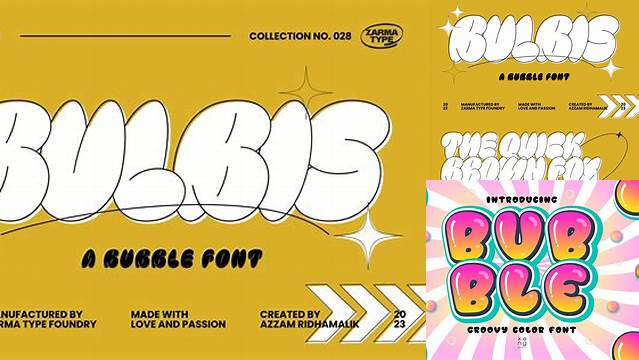
Bulbis Bubble Graffiti Font: Free Download & Creative Use
Exploring the Whimsical World of Bulbis Bubble Graffiti Font
Hey design enthusiasts, ever stumbled upon a font that just screams fun and creativity? That's exactly the vibe you get with the Bulbis Bubble Graffiti font. This unique typeface isn't your everyday blocky graffiti; it's got this amazing rounded, bubbly aesthetic that makes it incredibly playful and eye-catching. If you're looking to inject some serious personality into your projects, whether it's a flyer, a social media post, a t-shirt design, or even a cool logo, this font is a fantastic choice. We're talking about a font that can instantly transform a dull design into something vibrant and engaging. The way the letters are formed, with their smooth, circular curves and slightly irregular shapes, gives it a hand-drawn, authentic graffiti feel, but with a modern, accessible twist. It’s the kind of font that doesn't take itself too seriously, making it perfect for projects that need a touch of lightheartedness and energy. Think of kids' party invitations, quirky branding for a new cafe, or even custom lettering for a comic book. The possibilities are endless, and the impact is always significant. Plus, the fact that you can often find a Bulbis Bubble Graffiti font free download makes it even more appealing for designers on a budget or those just experimenting with new styles. We'll dive deep into what makes this font so special and where you can get your hands on it, so stick around!
Why Choose Bulbis Bubble Graffiti Font for Your Designs?
So, why should the Bulbis Bubble Graffiti font be on your design radar, guys? Well, it's all about the unique aesthetic it brings to the table. Unlike many traditional graffiti fonts that can be sharp, aggressive, or difficult to read, Bulbis Bubble offers a friendly, approachable, and incredibly legible charm. The rounded, bulbous shapes of the letters are reminiscent of actual bubble letters that many of us doodled in school, instantly evoking a sense of nostalgia and fun. This makes it perfect for projects targeting a younger audience or for brands that want to convey a playful, energetic, and approachable personality. Beyond its visual appeal, the versatility of this font is another major plus. It works wonders in large display sizes for headlines, posters, and banners, where its bold character can really shine. But don't underestimate its power in smaller sizes for body text or captions; when used strategically, it can add a distinctive flair without sacrificing readability. We often see designers using it for event posters, album covers, social media graphics, children’s book illustrations, and even fun branding for businesses like ice cream shops or toy stores. The inherent playfulness of the Bulbis Bubble Graffiti font means it can help your design stand out from the crowd. In a world saturated with sleek, minimalist designs, a font like this offers a refreshing burst of creativity and individuality. It’s a tool that allows you to communicate a feeling – joy, excitement, spontaneity – without uttering a single word. And let's be honest, finding a font that offers so much character and is available as a Bulbis Bubble Graffiti font free download is a pretty sweet deal for any designer's toolkit.
The Appeal of Bubble Letters in Graffiti Art
Let's get into the nitty-gritty of why bubble letters, and by extension, the Bulbis Bubble Graffiti font, are so darn cool. The whole concept of bubble letters in graffiti stems from a desire to create something that's both visually striking and, importantly, readable from a distance. Early graffiti artists developed bubble letters as a way to make their tags and pieces pop while still maintaining a sense of flow and unity. The rounded forms are inherently softer and more organic than sharp, angular lettering, giving them a friendly and almost cartoonish appeal. This softness is what the Bulbis Bubble Graffiti font masterfully captures. It takes that classic graffiti element and refines it into a clean, digital format that's accessible to everyone. Think about it: bubble letters are inviting. They don't have the intimidating edge that some hardcore graffiti styles possess. They’re playful, energetic, and full of life, much like the bubbly sound they're named after. This inherent joyfulness makes them incredibly versatile. You see them everywhere – on skateboards, in video game titles, on t-shirts for kids, and, of course, in various forms of graphic design. The Bulbis Bubble Graffiti font taps into this universal appeal, offering a ready-made solution for designers who want to evoke that same sense of fun and vibrancy. It's a nod to the roots of street art while being perfectly suited for modern digital applications. Whether you're designing for a brand that wants to appear youthful and dynamic or creating artwork that simply needs a pop of color and personality, understanding the appeal of these rounded forms is key. The free download availability of Bulbis Bubble Graffiti font further democratizes this style, allowing anyone to experiment with its delightful charm.
Tips for Using Bulbis Bubble Graffiti Font Effectively
Now that you've hopefully found your Bulbis Bubble Graffiti font free download, let's chat about making it look amazing in your designs. This font has a strong personality, so the key is to use it where its character can shine without overwhelming the rest of your design. Firstly, headlines and display text are its natural habitat. Think big, bold titles for posters, flyers, event invitations, or website banners. Its rounded, bubbly form makes it super readable and attention-grabbing, perfect for drawing people in. Don't be afraid to play with color! Since the font itself is quite fun, vibrant color combinations can really make it pop. Consider contrasting colors or even gradients to add extra dimension. Secondly, consider pairing it with a simpler, more neutral font. Because Bulbis Bubble is so distinctive, using it alongside a clean sans-serif or a minimalist serif font for body text or supporting information creates a balanced look. This contrast allows the graffiti font to be the star while ensuring the rest of your content is easily digestible. Thirdly, think about the context. This font is fantastic for projects with a playful, youthful, or energetic theme. It’s ideal for branding for kids' products, entertainment events, music-related designs, or anything that needs a touch of casual, street-art flair. For more formal or corporate projects, it might be a bit too informal. Experiment with text effects too! While the font is great on its own, subtle effects like a slight drop shadow, an outline, or a textured overlay can add even more depth and visual interest. Just don't overdo it; the goal is to enhance, not overpower. Finally, remember readability. While it's a graffiti font, the Bulbis Bubble Graffiti font is designed to be relatively clear. Ensure sufficient spacing between letters (kerning) and lines (leading) so it doesn't become a jumbled mess, especially at smaller sizes. Use it wisely, and it will definitely elevate your designs, guys!
Creative Applications of Bubble Graffiti Fonts
Man, the creative possibilities with fonts like the Bulbis Bubble Graffiti font are seriously endless! Because they bring such a distinct, playful energy, they’re perfect for shaking up standard design projects. Let’s dive into some cool applications. First up, branding and logos. Imagine a hip new cafe, a skate shop, or a mobile game using a Bulbis Bubble Graffiti font for its logo. It immediately communicates a fun, energetic, and perhaps a bit rebellious vibe that can attract a specific audience. It’s a great way to stand out from the more corporate, often generic, logo designs you see everywhere. Secondly, event promotion. Think music festivals, youth events, or even birthday parties. A poster or flyer designed with this font screams excitement and fun. You can use it for the main event title, or even create cool typographic treatments for key information like dates and times. It’s way more engaging than a standard font. Thirdly, merchandise design. T-shirts, hoodies, hats, stickers – anything wearable or collectible can get a serious style boost from bubble graffiti lettering. It’s perfect for capturing that street art aesthetic that’s always popular. Fourthly, social media graphics. Need to create an eye-catching Instagram post or a vibrant Facebook banner? This font is your best friend. It can make your posts stand out in a crowded feed, especially for brands targeting younger demographics or promoting exciting content. Album covers and book covers are another fantastic area. For musicians in genres like hip-hop, pop, or electronic music, or for authors writing young adult fiction or graphic novels, this font can perfectly encapsulate the mood and theme of the work. Don't forget digital interfaces, like game UIs or app splash screens, where a bit of personality goes a long way. The Bulbis Bubble Graffiti font, with its free availability, makes these vibrant applications accessible to everyone.
Bulbis Bubble Font vs. Other Graffiti Styles
So, how does our star, the Bulbis Bubble Graffiti font, stack up against its graffiti brethren? It's an interesting comparison, guys, because the world of graffiti lettering is vast and varied. Traditional graffiti fonts often mimic the sharp, angular, and highly stylized forms seen in classic street art. Think bold outlines, sharp serifs (or lack thereof), and a sense of raw energy, sometimes bordering on aggression. These fonts are great for projects that need a gritty, urban, or rebellious feel. Then you have more stylized graffiti fonts, like those that incorporate elaborate throw-ups, complex wildstyle, or even stencil effects. These can be incredibly artistic but often sacrifice readability for visual complexity. Now, where does the Bulbis Bubble Graffiti font fit in? It belongs to the 'bubble letter' subgenre, which is characterized by its rounded, soft, and often inflated-looking letterforms. This style is inherently more playful, friendly, and approachable than many traditional graffiti fonts. While a sharp, angular graffiti font might be perfect for a punk rock band's poster, the Bulbis Bubble font would be a better fit for a children's toy brand or a summer music festival aimed at a younger crowd. It offers the visual impact of graffiti – the bold lines, the distinctive shapes – but with a much softer, more welcoming demeanor. It bridges the gap between pure street art and accessible graphic design. If you’re aiming for a look that’s energetic and eye-catching but also needs to be inviting and fun, this bubbly style is often the way to go. The free download aspect of Bulbis Bubble Graffiti font makes this softer, yet still impactful, style readily available for all sorts of creative endeavors.
History and Evolution of Bubble Lettering
Let's take a quick trip down memory lane and talk about the history of bubble lettering, the style that the Bulbis Bubble Graffiti font so brilliantly embodies. Bubble lettering, as a distinct style within graffiti and typography, really gained traction in the late 1970s and early 1980s. It emerged as a way for graffiti artists, particularly those working in cities like New York, to create lettering that was visually distinct and could stand out from the more angular, block-letter styles that were prevalent. The key innovation was the use of rounded, inflated shapes – hence,